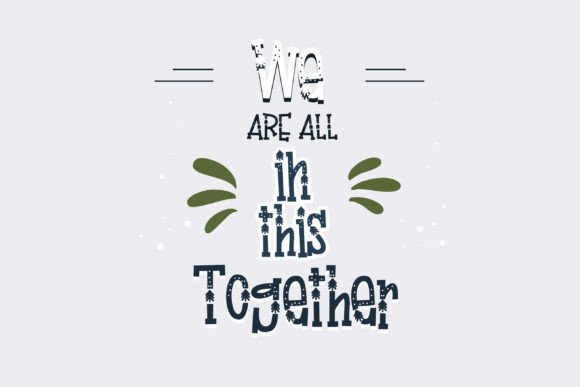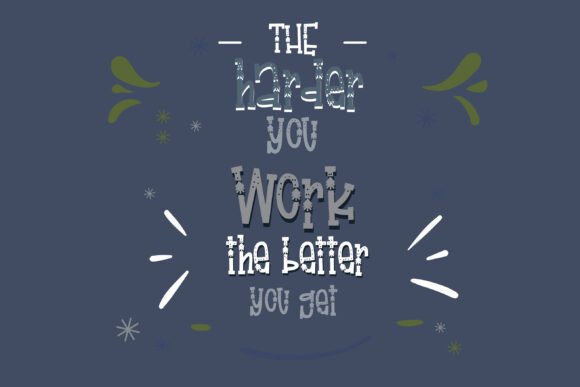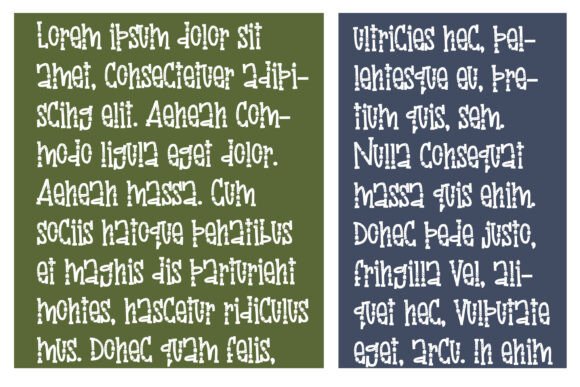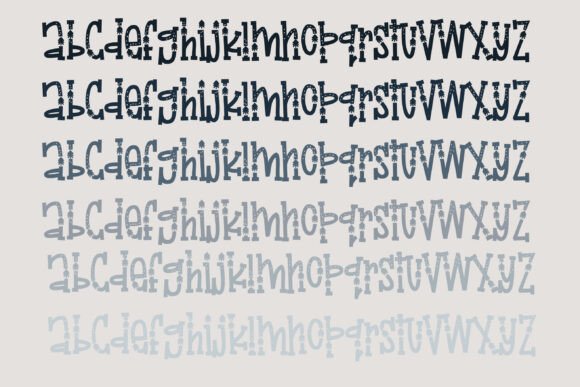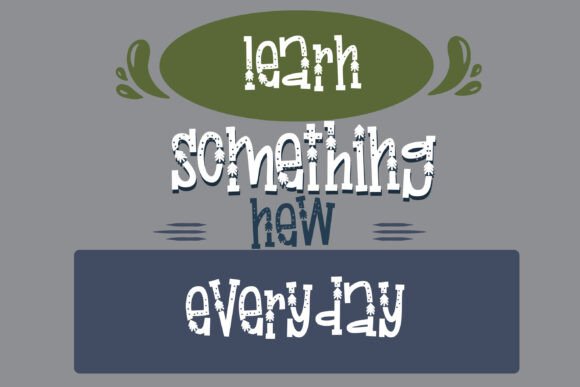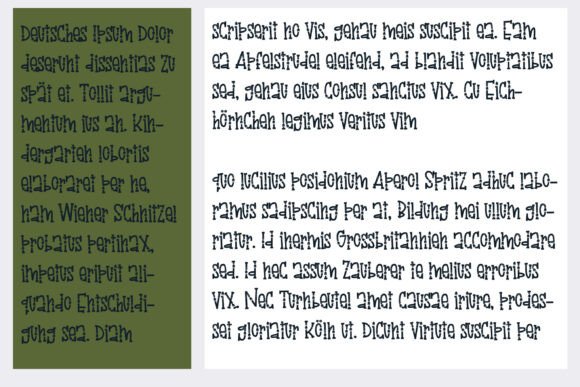
Introduction to Ladybird Tannenbaum Font
This hand-crafted font is a whimsical serif with snow and evergreen trees.
A hand-crafted font is a font that is designed to look like it was written by hand It is often used for invitations, greeting cards, and other items.
Key Features of Ladybird Tannenbaum Font
Why Choose Ladybird Tannenbaum Font?
Ladybird Tannenbaum Font offers exceptional quality and versatility, making it a valuable addition to your design toolkit. Whether you’re creating for personal projects or commercial use, Ladybird Tannenbaum Font delivers professional results.